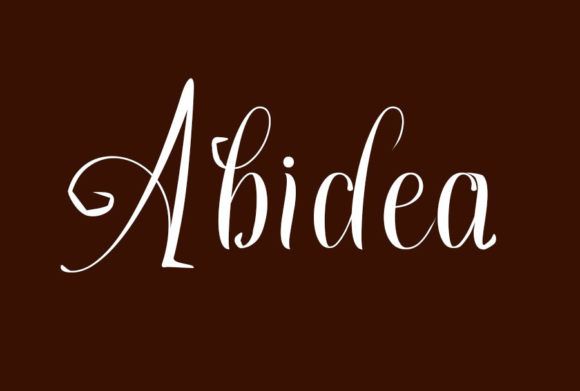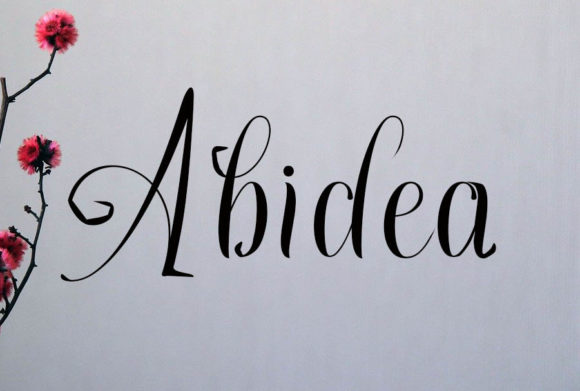
The Abidea Font: A Luxurious Addition to Your Design Arsenal
I’ll never forget the time I was working on a luxury branding project for a high-end jewelry client. I had spent hours perfecting the logo design, but something was missing. The font I had chosen just wasn’t delivering the level of sophistication and elegance that the brand demanded. That’s when I stumbled upon the Abidea font, and it completely transformed the project. In this article, I’ll share my experience with this beautiful light handwritten font and provide a comprehensive guide on how to make the most of its stunning features.
An Honest Review of Abidea Font
- ✨ Unique feel: Abidea has a distinct, elegant vibe that sets it apart from other handwritten fonts.
- 💫 Luxury spark: Abidea adds a touch of sophistication and glamour to any design project.
- 🎨 Versatility: This font can be used for a wide range of design projects, from branding and advertising to packaging and digital media.
While Abidea is an exceptional font, there are a few minor quirks to be aware of:
- 🤔 Limited use in body text: Due to its light and elegant nature, Abidea may not be the best choice for lengthy body text.
The Designer Inspiration Behind Abidea
The Abidea font was inspired by the beauty of handwritten calligraphy. The designer, who wishes to remain anonymous, was inspired by the elegant script styles of the 18th century. With Abidea, they aimed to create a font that would bring a touch of luxury and sophistication to any design project.
Q: Is Abidea font suitable for body text?
A: While Abidea is an elegant font, it may not be the best choice for lengthy body text due to its light and elegant nature.